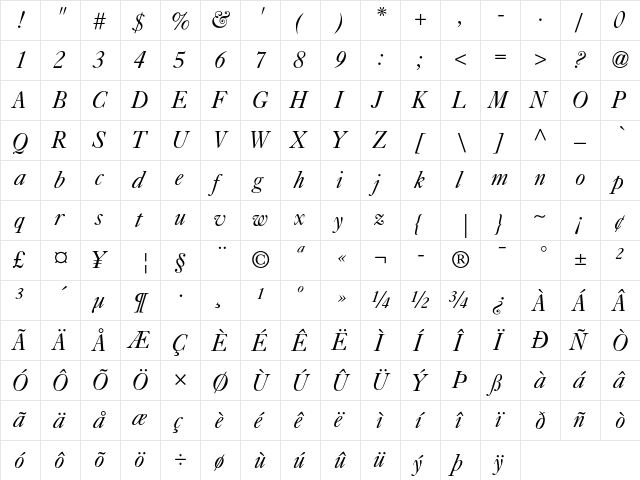
Caslon 540 Italic
Design Context for Caslon 540 Typeface
Caslon 540 offers clean, dependable letterforms without strong stylistic allegiance, making it a practical choice for designers who need flexibility. Its italic angle brings a sense of urgency and motion to the letterforms.
Pro Tip: Use Caslon 540 for emphasis, pull quotes, and subheadings where its slanted energy can add rhythm to the layout.